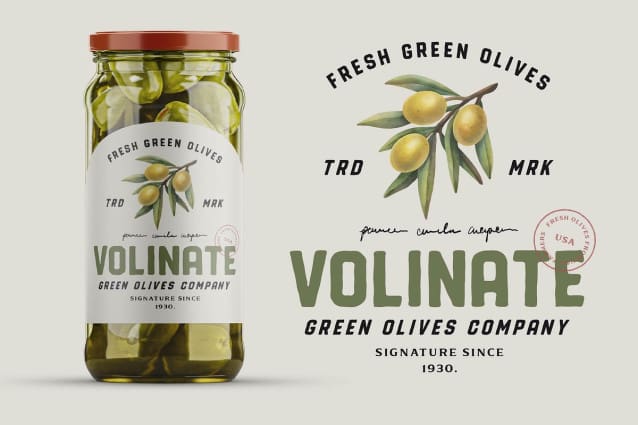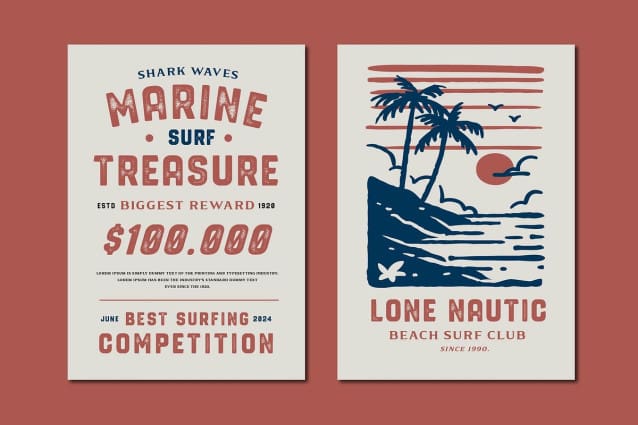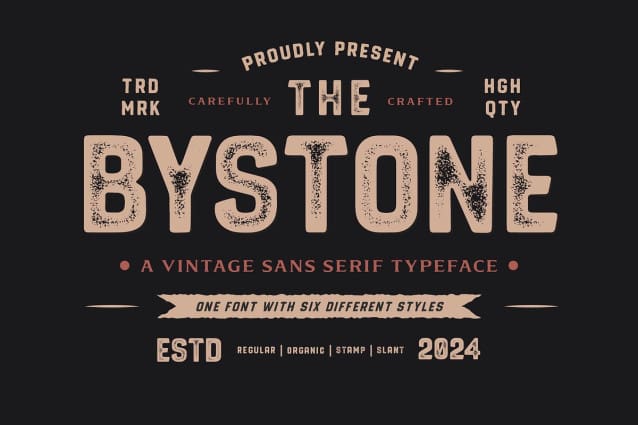
Bystone Font
Bystone Font, a Vintage Display Sans Serif Font that effortlessly blends timeless elegance with contemporary flair.
With included OTF and TTF file formats, this font guarantees seamless integration into your creative projects, ensuring a smooth and stylish typographic experience. Bystone goes beyond the ordinary, offering alternate characters that add a touch of versatility to your designs. Its refined yet bold aesthetic makes it perfect for a myriad of applications, from branding and headlines to vintage-inspired projects. Additionally, Bystone boasts multilingual support, allowing you to communicate your message globally with ease.
Embrace the charm of a bygone era while maintaining a modern edge — Bystone Font is your key to creating captivating designs that stand the test of time.